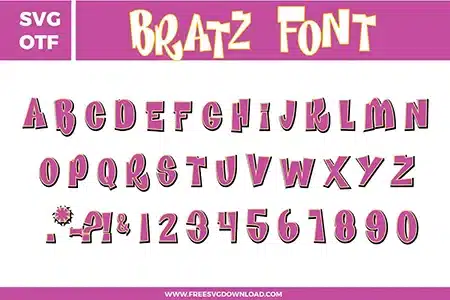
A bold and sassy Bratz Font free svg files set. The design features tall, flared characters with irregular widths and a dramatic y2k aesthetic. This OTF and SVG font bundle includes a full uppercase alphabet, numbers 0–9, and unique punctuation marks in a vibrant pink and purple style with a white and black multi-layered outline, perfect for early 2000s nostalgic crafts.
• Bratz Font SVG: Full uppercase alphabet set with matching numbers and punctuation, designed in a playful fashion-inspired display style with uneven character widths, rounded forms, and pink letter fills with shadowed depth.
How do I manage the multi-layered outlines of this flared font?
This font features a complex triple-layer look. To weed successfully, cut the black base, the white middle, and the pink top layers separately. Use ‘Registration Marks’ (small squares placed outside the design) to align the layers perfectly before pressing or applying to your surface.
Due to the flared bottoms and sharp ‘Z’ edges, use a fresh Premium Fine-Point blade. Set your machine to a slower speed (2 or 3) to ensure the blade doesn’t skip or drag the vinyl when navigating the tight, irregular angles characteristic of the Bratz aesthetic.
If you are cutting very small names, the multi-layer outline may become too intricate. Use the ‘Offset’ tool to create a single 0.08-inch solid background layer. By ‘Flattening’ the font onto this offset, you can create a Print Then Cut sticker that retains the look without the weeding difficulty.
For that authentic y2k look, use ‘Cricut Holographic’ or ‘TeckWrap Craft Opal’ adhesive vinyl. These materials mirror the metallic, high-fashion vibe of the Bratz brand. Ensure you use high-tack transfer tape, as textured and holographic vinyls require a stronger grip to lift from the carrier sheet.
If a letter like ‘B’ or ‘R’ looks slightly distorted, enter ‘Edit Nodes’ mode. Look for ‘Smooth’ nodes that should be ‘Corner’ nodes at the flared base. By converting these points and adjusting the Bezier handles, you can restore the crisp, sharp lines of the original typography.